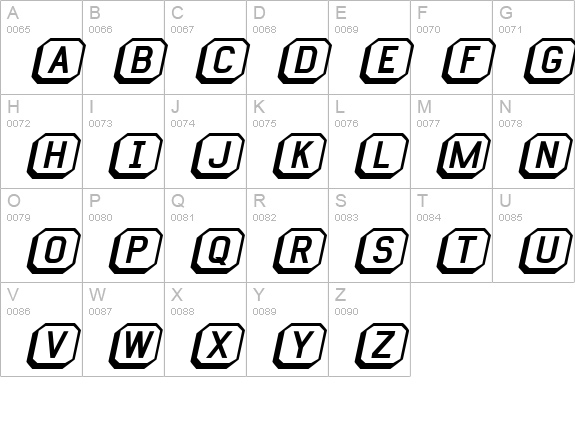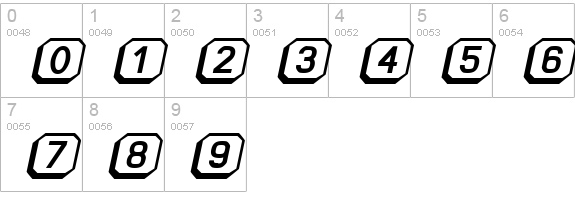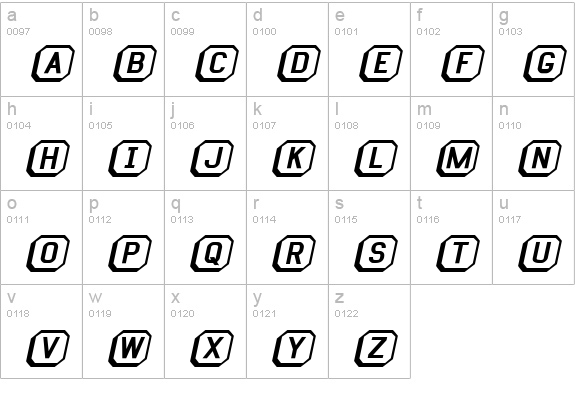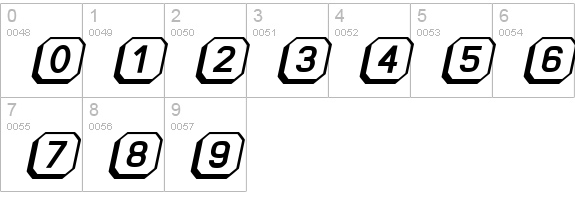
Keyboard BoldItalic Font Details
Introducing Keyboard BoldItalic font, a stylish and eye-catching typeface designed to make a bold statement. This unique font combines the elegance of bold letterforms with the playful twist of italicized characters, resulting in a visually striking and versatile design. With its strong and confident appearance, Keyboard BoldItalic font is perfect for a variety of design projects, from logos and branding to headlines and posters. Its distinctive and dynamic letter shapes instantly capture attention and add a touch of sophistication to any creative endeavor. But what sets Keyboard BoldItalic font apart is not just its striking aesthetics; it is also available for free download at FontsMarket.com. Yes, you heard that right - freely available! Now you can enhance your designs with this exceptional font without breaking the bank. Whether you're a professional designer or a hobbyist, Keyboard BoldItalic font offers endless possibilities for expressing your creativity. It's easy to install and use, making it accessible to everyone who wants to add a touch of boldness and elegance to their projects. So don't miss out on this incredible opportunity to elevate your designs with Keyboard BoldItalic font. Visit FontsMarket.com today and download it for free. Unleash your creativity and make a lasting impression with this exceptional typeface.